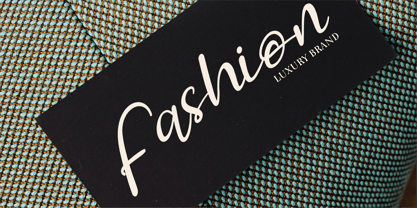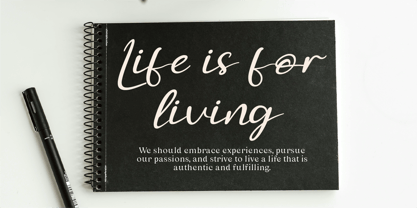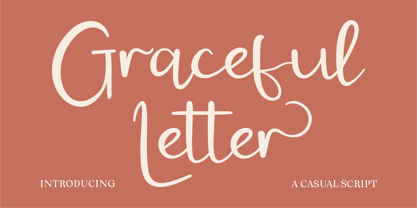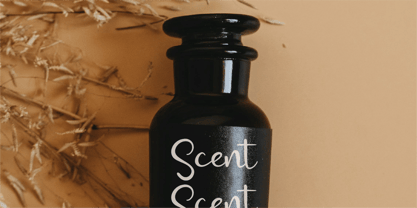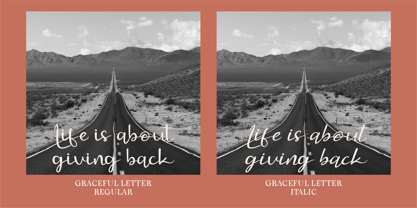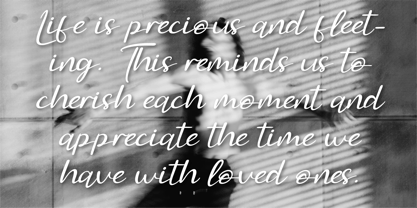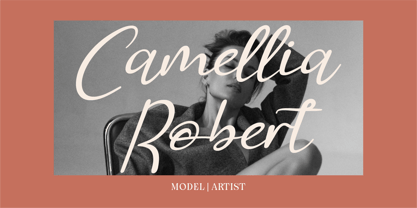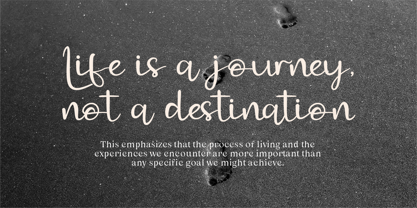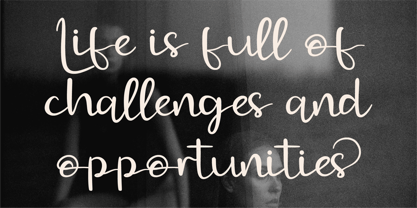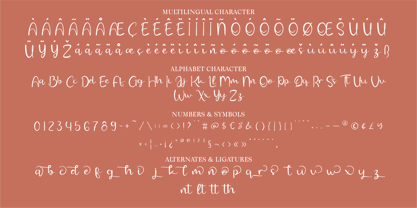
CF Graceful Letter
by Indotype
The CF Graceful Letter Font Family was designed by Gilang Mei Nugraha, Frederik Aristaputra and published by Indotype. CF Graceful Letter contains 2 styles and family package options. More about this family
Galine Amours is a modern handwritten font with a touch of romance and sophistication. Its elegant curves and smooth strokes create an enchanting aesthetic that is perfect for wedding invitations, love notes, branding, and more. This font combines the natural beauty of handwriting with a refined modern style, adding charm and warmth to your designs. Whether you're crafting heartfelt messages or creating timeless designs, Galine Amours is your go-to choice for a classy, handwritten look.
- Standard Character A-Z, a-z, 0-9, Punctuation & symbols
- Regular & Italic Style
- Multilingual Support
- Include Alternates and Ligatures
Designers: Gilang Mei Nugraha, Frederik Aristaputra
Foundry: Indotype